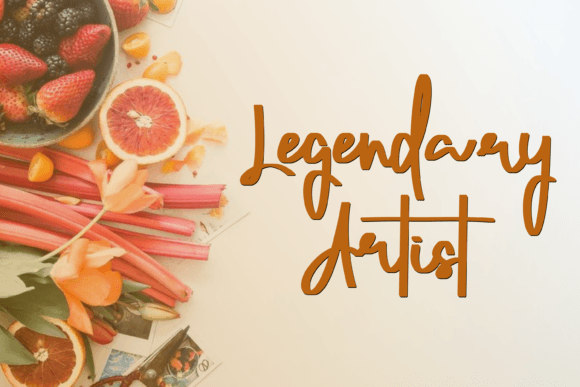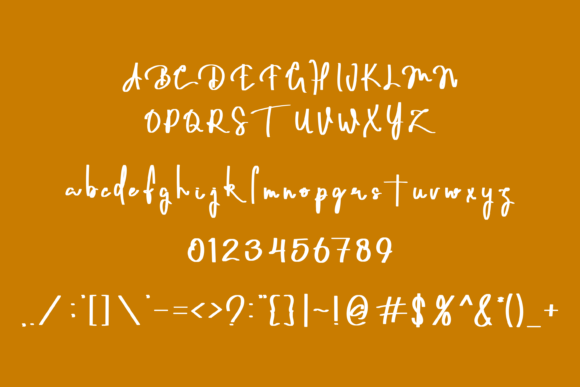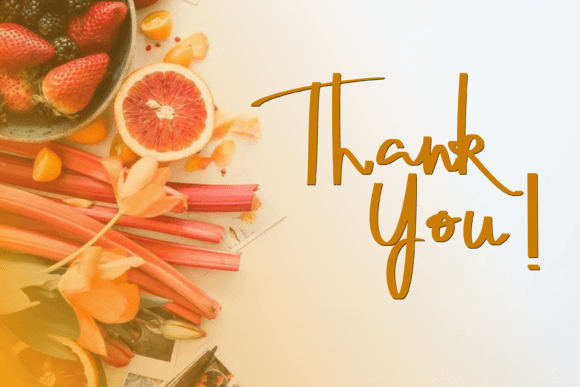
Introducing Delumbang Font: The Charming Handwritten Script Font You Need
In the world of typography, a good font can make all the difference in the success of a design project. Whether you’re a seasoned designer or a crafty DIY enthusiast, having the right font in your arsenal can elevate your creations from ordinary to extraordinary. That’s where Delumbang Font comes in – a charming and casual handwritten script font that’s sure to become a valuable asset in your font library.
The Versatility of Delumbang Font
Delumbang Font is a versatile and adaptable font that can be used for a wide range of design projects. Whether you’re working on a logo, a social media post, a blog article, or a craft project, this font is sure to add a touch of personality and whimsy to your creation. Its casual and handwritten feel makes it perfect for designs that require a friendly and approachable tone.
One of the best things about Delumbang Font is its ability to work well with a variety of topics. Whether you’re designing for a fashion brand, a food blog, or a travel company, this font is sure to complement your content and add visual interest to your design. Its neutral tone and elegant script make it an excellent choice for designs that require a touch of sophistication and elegance.
Key Features of Delumbang Font
So, what makes Delumbang Font so special? Here are some of its key features:
- Handwritten script font: Delumbang Font has a charming and casual handwritten feel that’s perfect for designs that require a personal touch.
- Versatile and adaptable: This font can be used for a wide range of design projects, from logos and social media posts to blog articles and craft projects.
- Neutral tone: Delumbang Font has a neutral tone that works well with a variety of topics and design styles.
- Elegant script: The font’s elegant script makes it perfect for designs that require a touch of sophistication and elegance.
How to Use Delumbang Font in Your Designs
Using Delumbang Font in your designs is easy. Here are some tips to get you started:
- Pair it with bold fonts: Delumbang Font works well with bold fonts, so try pairing it with a bold sans-serif font for a striking contrast.
- Use it for headings and titles: The font’s elegant script makes it perfect for headings and titles, so try using it to add visual interest to your design.
- Experiment with colors: Delumbang Font works well with a variety of colors, so try experimenting with different color combinations to find the one that works best for your design.
Why Designers and Crafters Love Delumbang Font
Delumbang Font has quickly become a favorite among designers and crafters, and for good reason. Here are some reasons why:
- Unique and distinctive: Delumbang Font has a unique and distinctive look that sets it apart from other fonts.
- Easy to read: The font’s elegant script is easy to read, making it perfect for designs that require a lot of text.
- Highly versatile: Delumbang Font can be used for a wide range of design projects, making it a valuable asset in any font library.
| Font Name | Delumbang Font |
| Author | riotama85 |
In conclusion, Delumbang Font is a charming and casual handwritten script font that’s sure to become a valuable asset in your font library. Its versatility, neutral tone, and elegant script make it perfect for a wide range of design projects, from logos and social media posts to blog articles and craft projects. Whether you’re a seasoned designer or a crafty DIY enthusiast, Delumbang Font is definitely worth checking out.